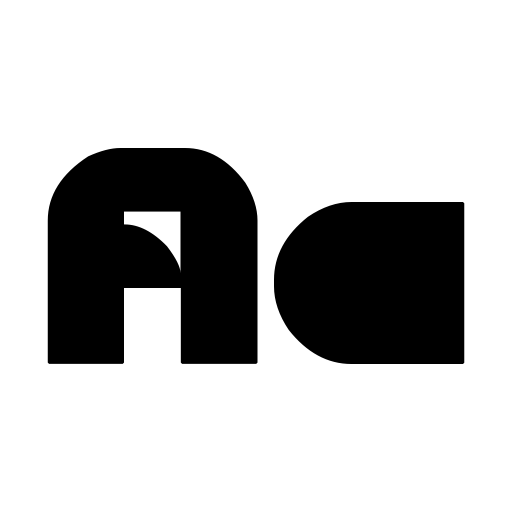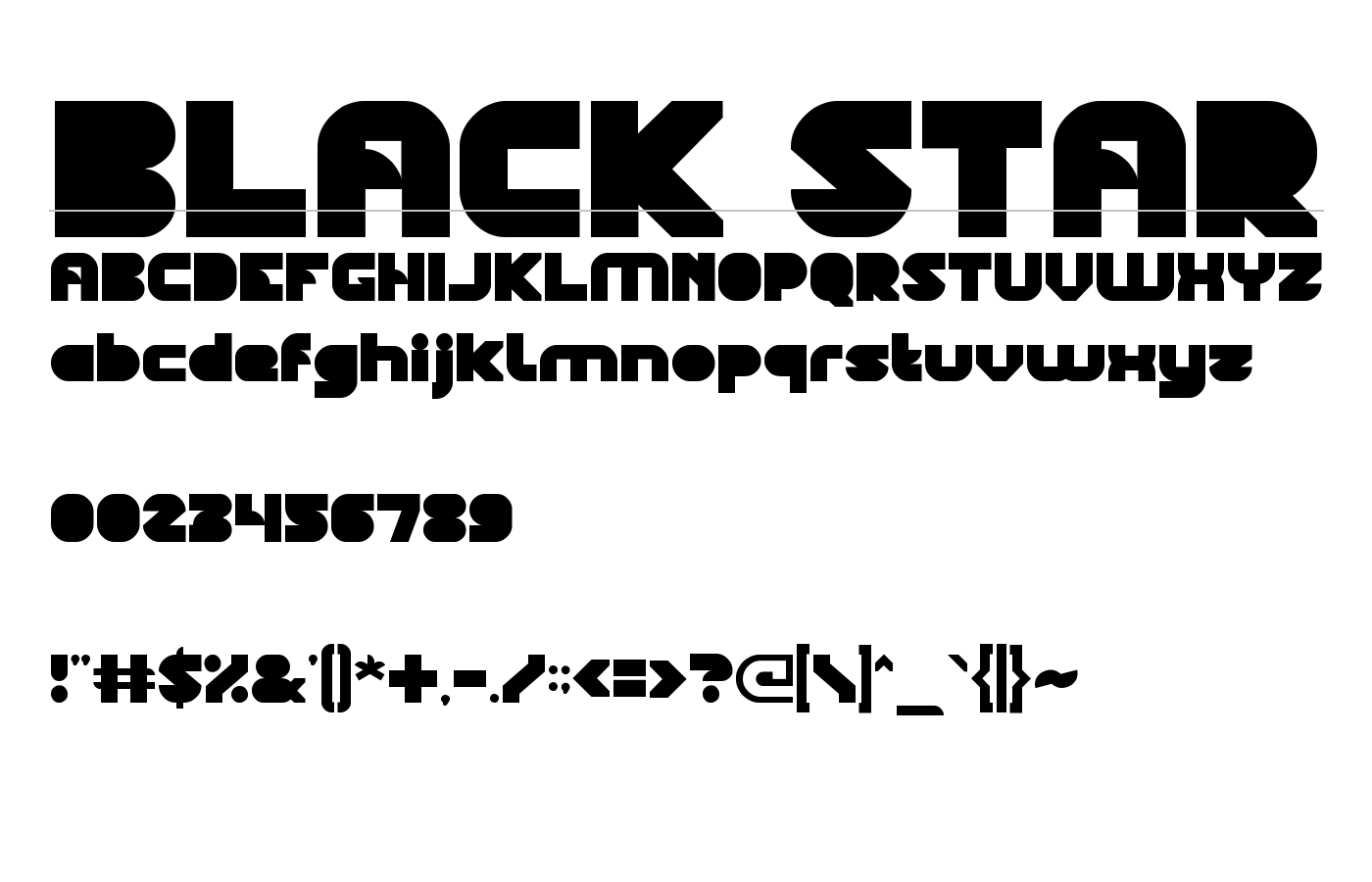
BLACK STAR is a bold, geometric sans serif font with a strong, modern presence. Its thick, blocky letterforms and high x-height give it a sturdy, impactful feel, while distinctive angular cuts and stylized shapes add a unique, futuristic edge. This font is ideal for bold headlines, logos, and display use where you want to convey strength and contemporary style.
BLACK STAR Font
About BLACK STAR Font